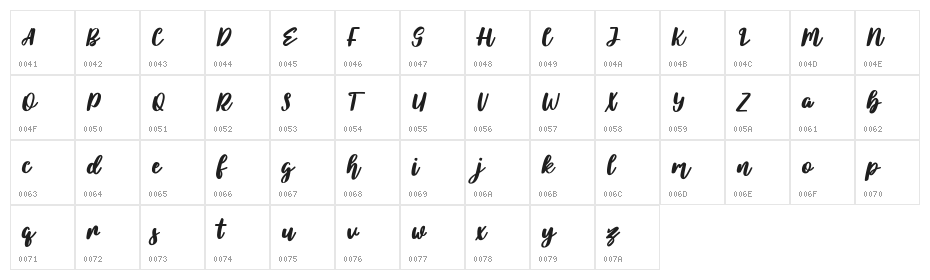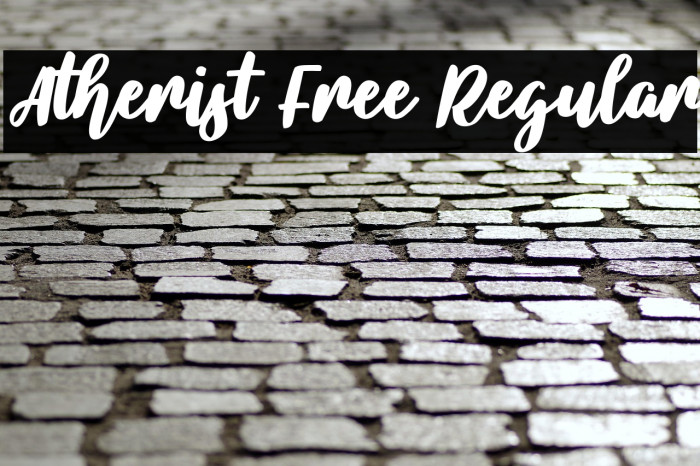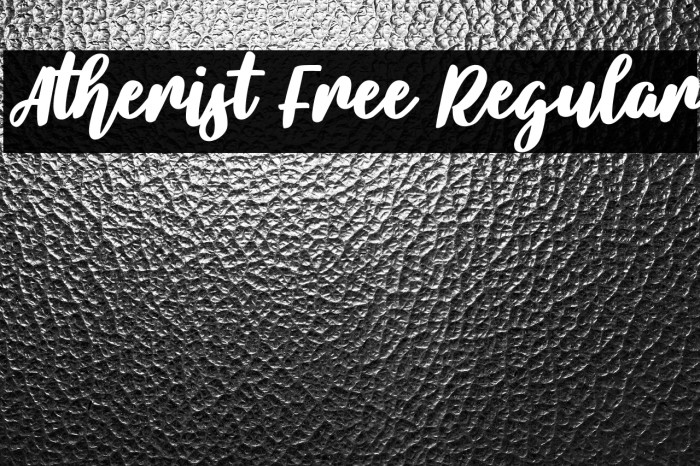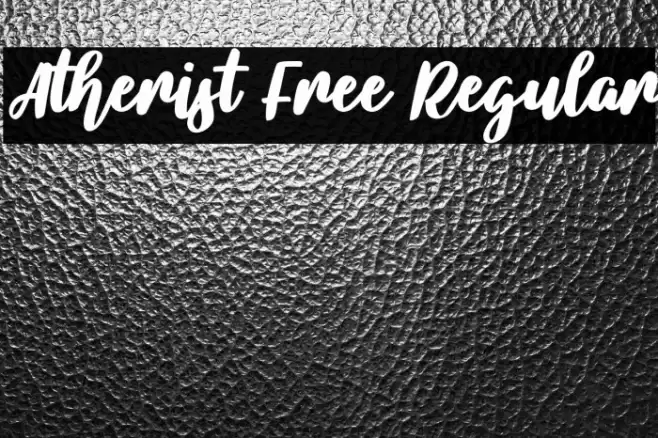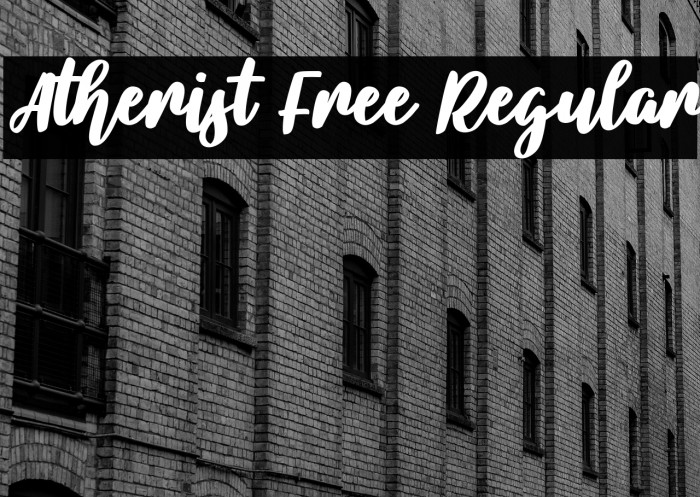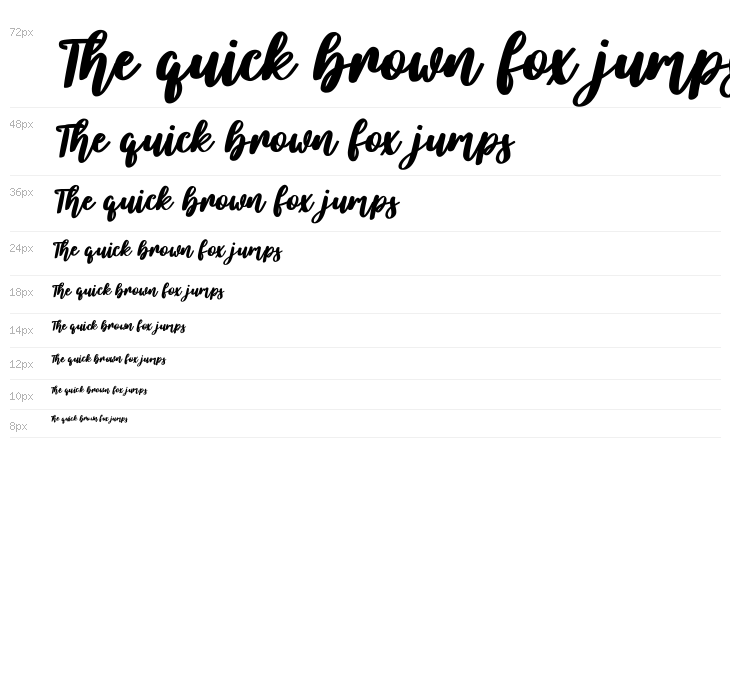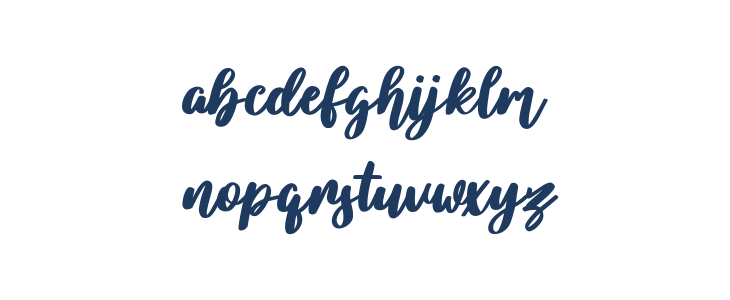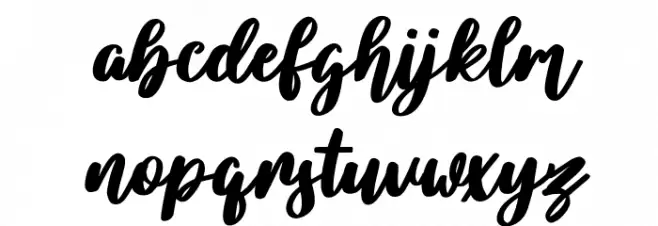
Atherist Free Regular Font
Atherist Free Regular Description
A casual, handwritten script font with a smooth, flowing style. The uppercase letters are bold and slightly slanted, while the lowercase letters are rounded and connected, giving a friendly and approachable appearance.
| Overall Style | Casual, Friendly, Handwritten |
| Use Case | Logos, Branding, Invitations, Greeting Cards, Social Media Graphics |